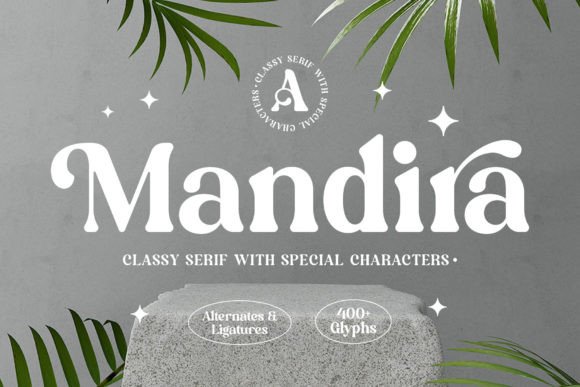
Are you seeking a unique and sophisticated touch for your design projects? Look no further than Mandira Font, the ultimate serif font created by Arterfak Project.
Mandira Font is the perfect choice for those seeking a minimalist yet stylish look, inspired by the modern retro design. Its rounded curves add a touch of elegance and femininity, making it an excellent choice for those looking for a font for their wedding invitations or other special events.
This font is PUA encoded, meaning you have access to all the amazing glyphs and ligatures with ease! With a wide range of special characters, you have the freedom to mix and match to create a truly personalized touch to your designs.
Make your project stand out with Mandira Font's eye-catching and unique features. Whether it's for your wedding invitations, business cards, or social media posts, this font will elevate your design to the next level.